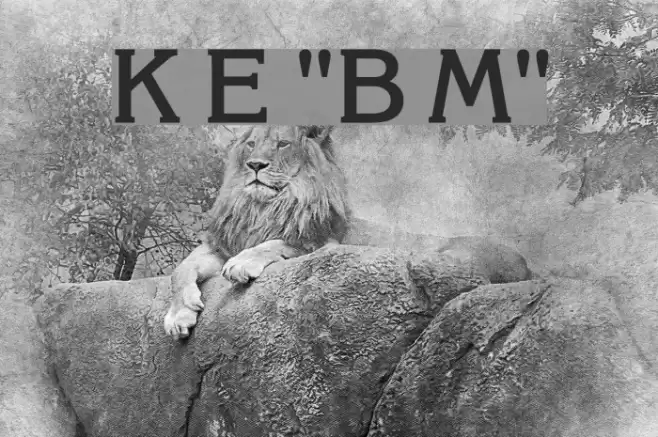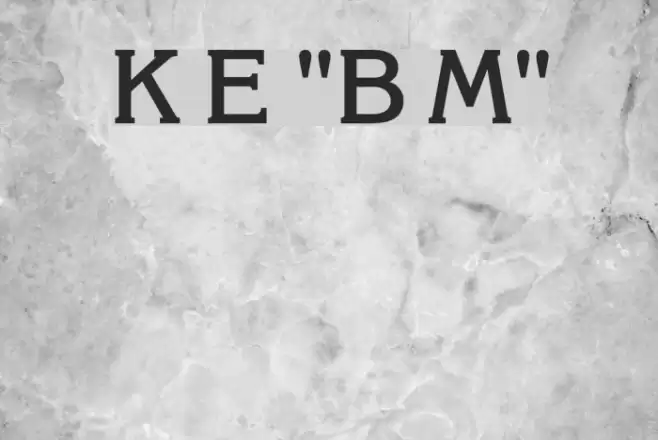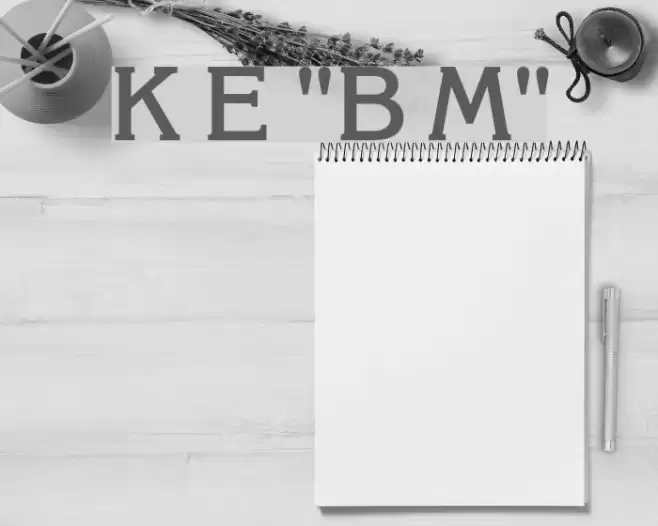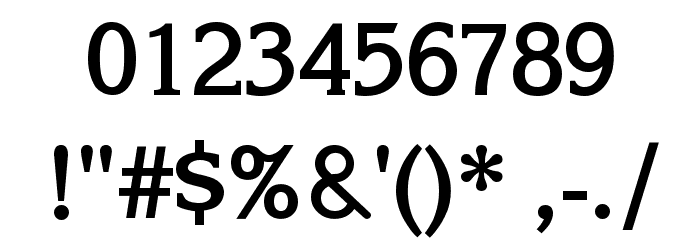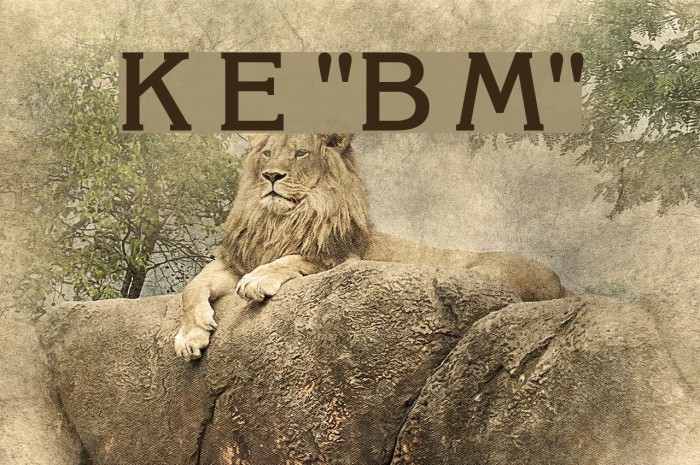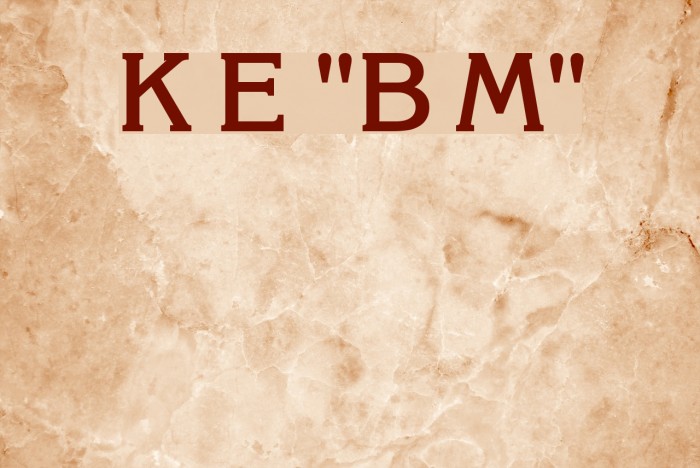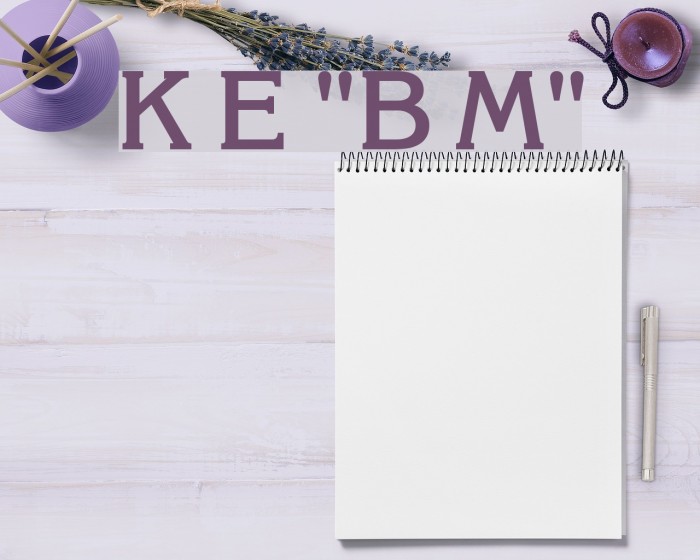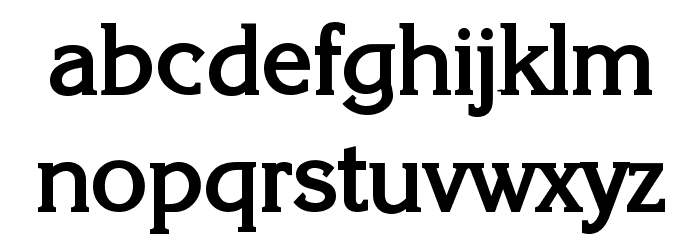
Karina Edited "By Masteraire" Font
Karina Edited "By Masteraire" Description
This font features a classic serif style with a modern twist, characterized by its clean lines and balanced proportions. The uppercase letters exhibit a strong presence with slightly flared serifs, while the lowercase letters maintain a harmonious flow, making it versatile for various applications. The numerals are clear and distinct, ensuring readability. Special characters are well-defined, adding to the font's utility. Overall, it combines traditional elegance with contemporary design, suitable for both digital and print media.
A modern serif font with clean lines and balanced proportions from Serif fonts.
- Proposed Projects: Ideal for editorial design, branding, book covers, and formal invitations.
- Overall Style: Classic